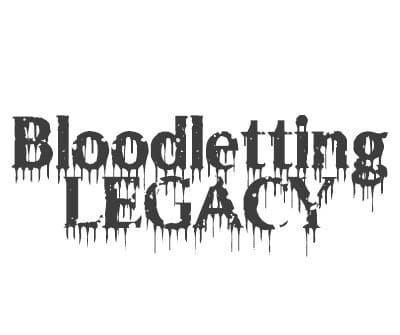
Bloodletting Legacy Font
Bloodletting Legacy Font. This unique typeface seamlessly melds the timeless elegance of serif design with the dramatic intensity of erosion and sharp blood drips. It’s not just a font; it’s an experience, invoking both unease and artistry in every stroke.
Crafted with meticulous attention to detail, Bloodletting Legacy is comprehensive and versatile. Whether you’re working on a chilling book cover, an evocative movie poster, or a thematic event invitation, this font ensures your message resonates with impact.